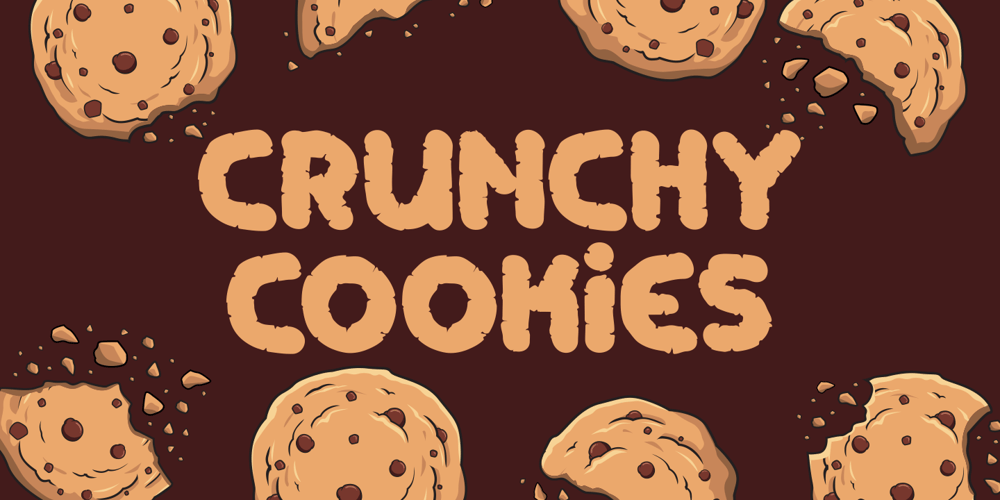
Crunchy Cookies Font Family was designed by Putra Novembria Candra Kusuma and published by Putracetol. Crunchy Cookies contains 1 styles and family package options. Crunchy Cookies – Bold Quirky Display Font. Crunchy Cookies is a playful and bold quirky display font. This font will easily add a fun touch to any craftCrunchy Cookies perfect for any fun quirky design work! This font can be used for anything such as story books, illustrations, comic books, t-shirts, posters, greeting cards, logos, branding, stickers, svg, crafting and all for display purposes.The alternative characters were divided into several Open Type features such as Swash, Stylistic Sets, Stylistic Alternates, Contextual Alternates, and Ligature. The Open Type features can be accessed by using Open Type savvy programs such as Adobe Illustrator, Adobe InDesign, Adobe Photoshop Corel Draw X version, And Microsoft Word. This font is also support multi language.